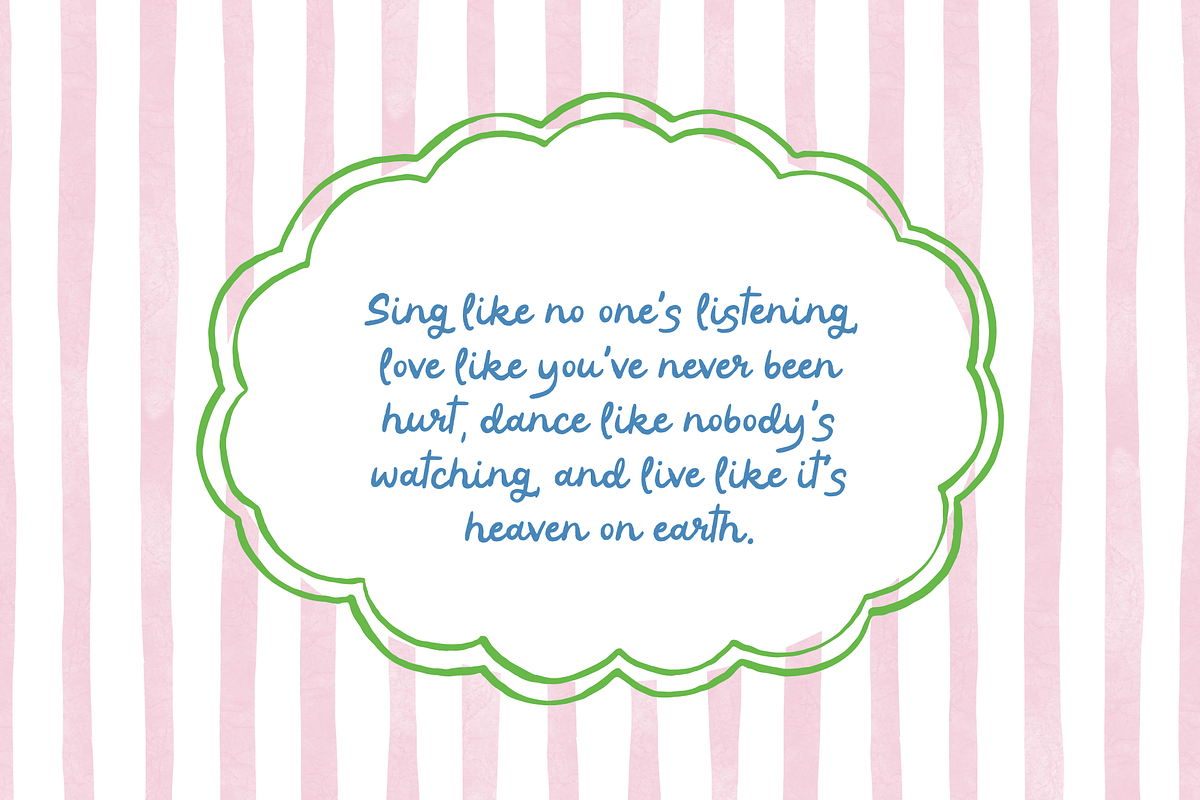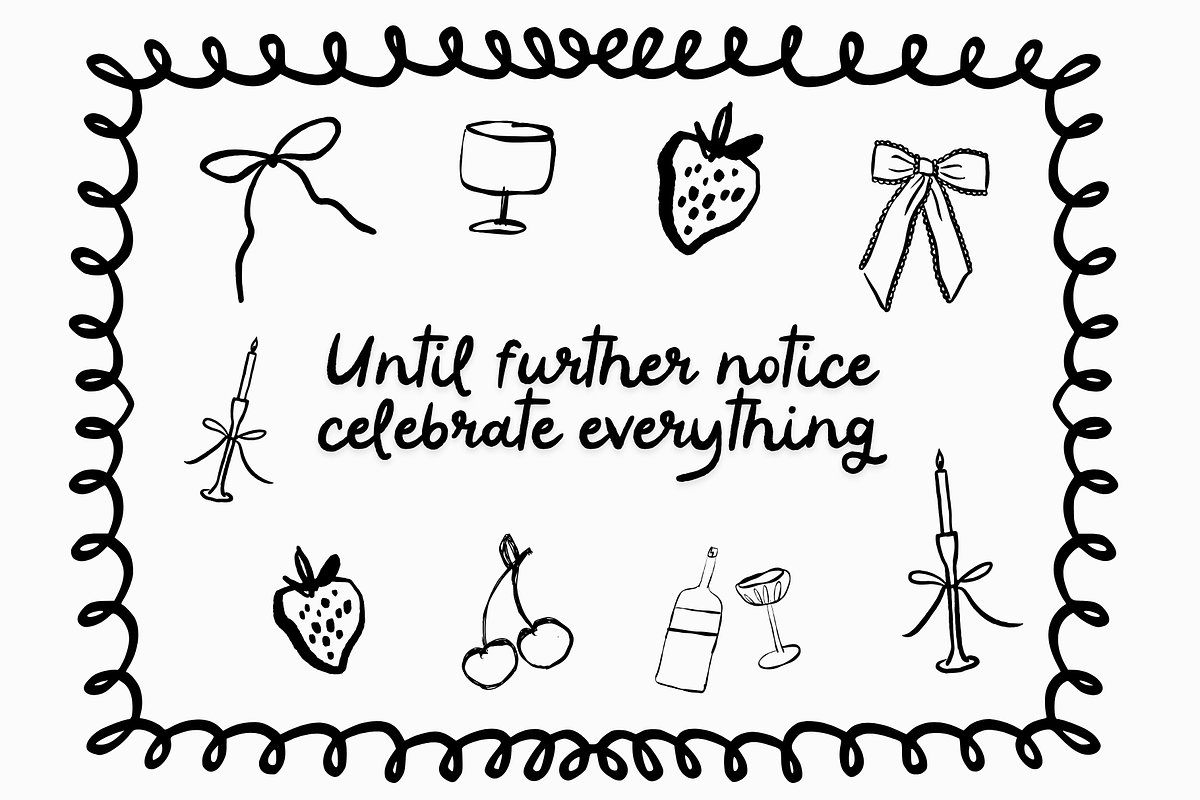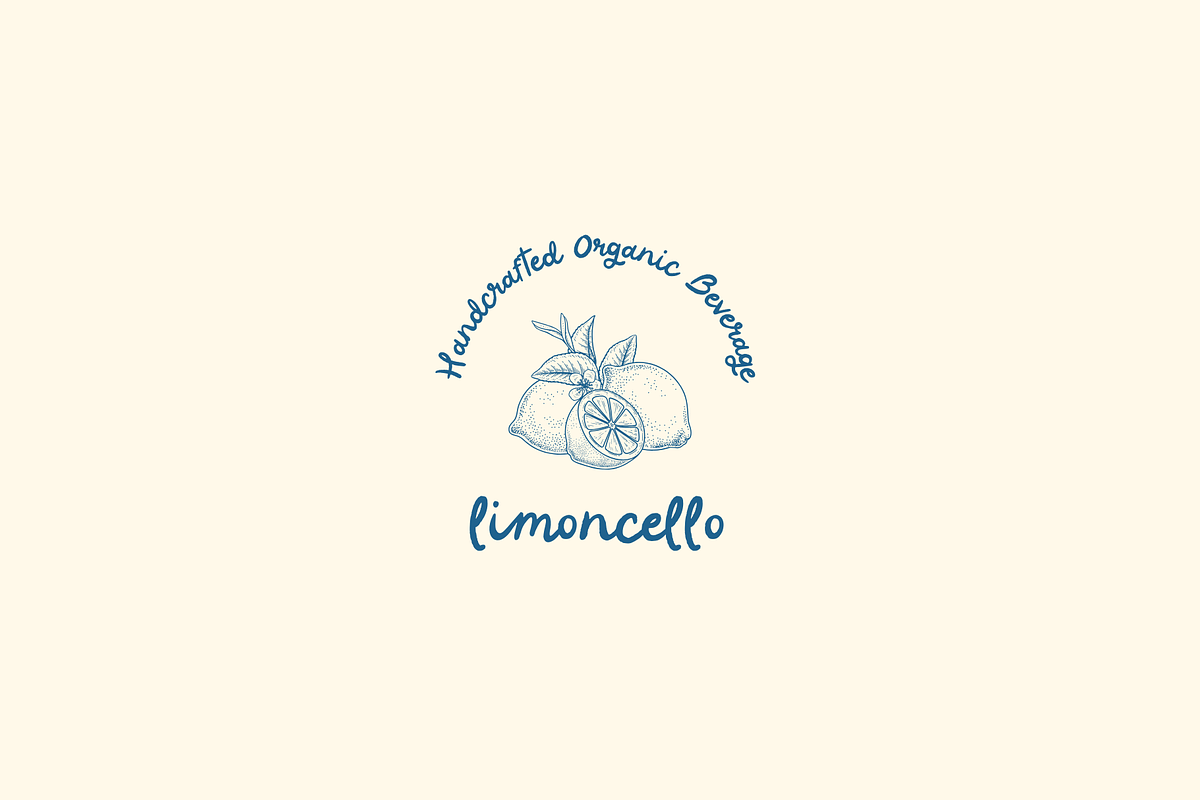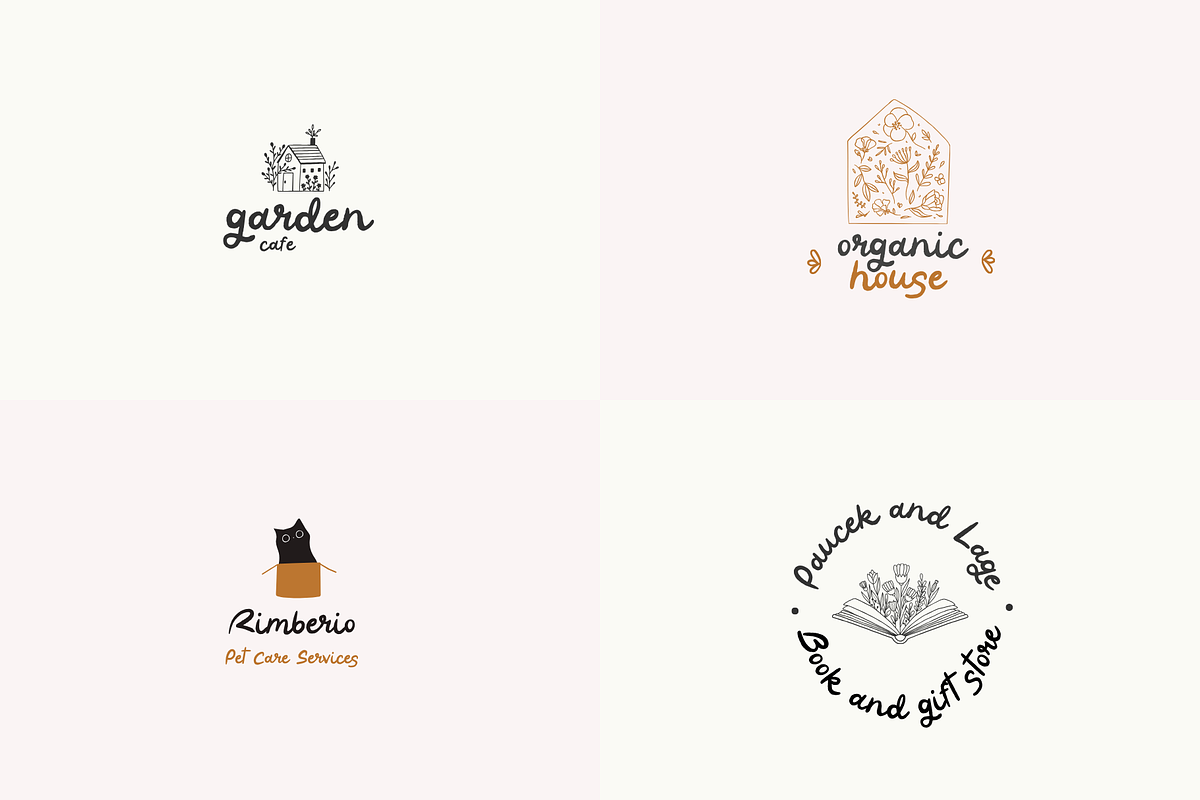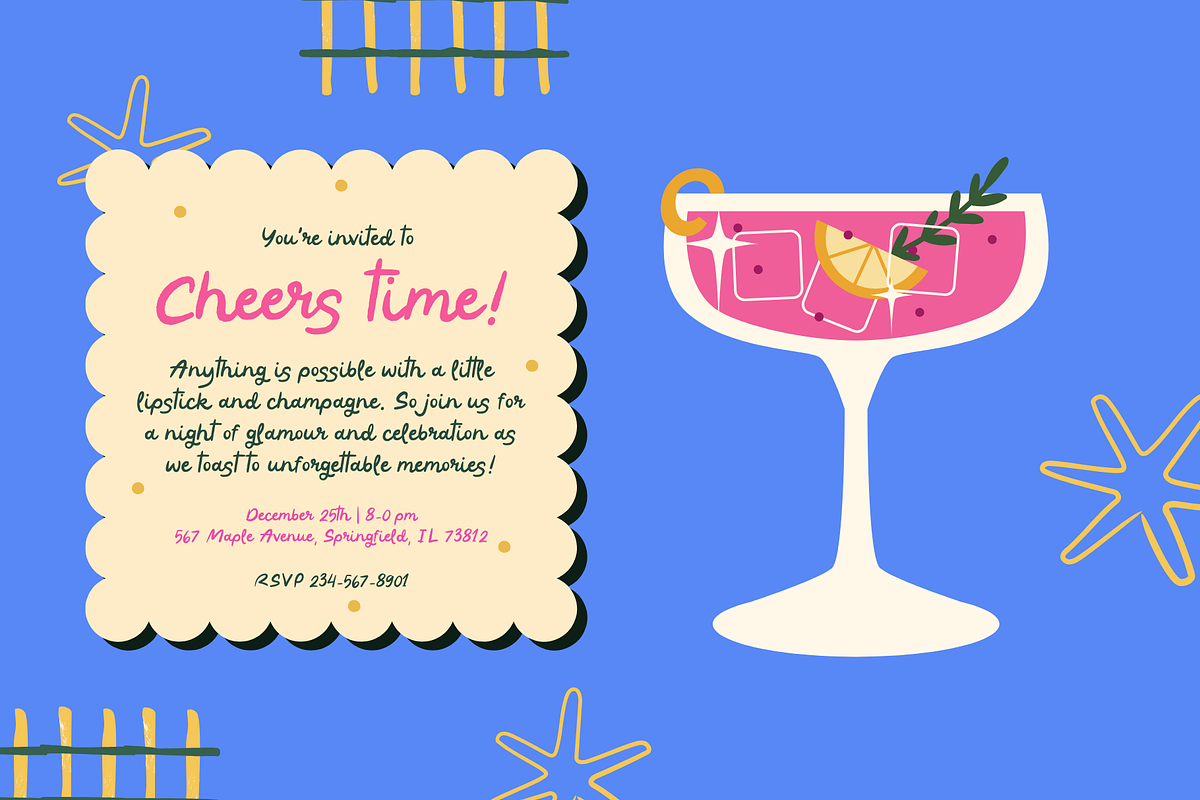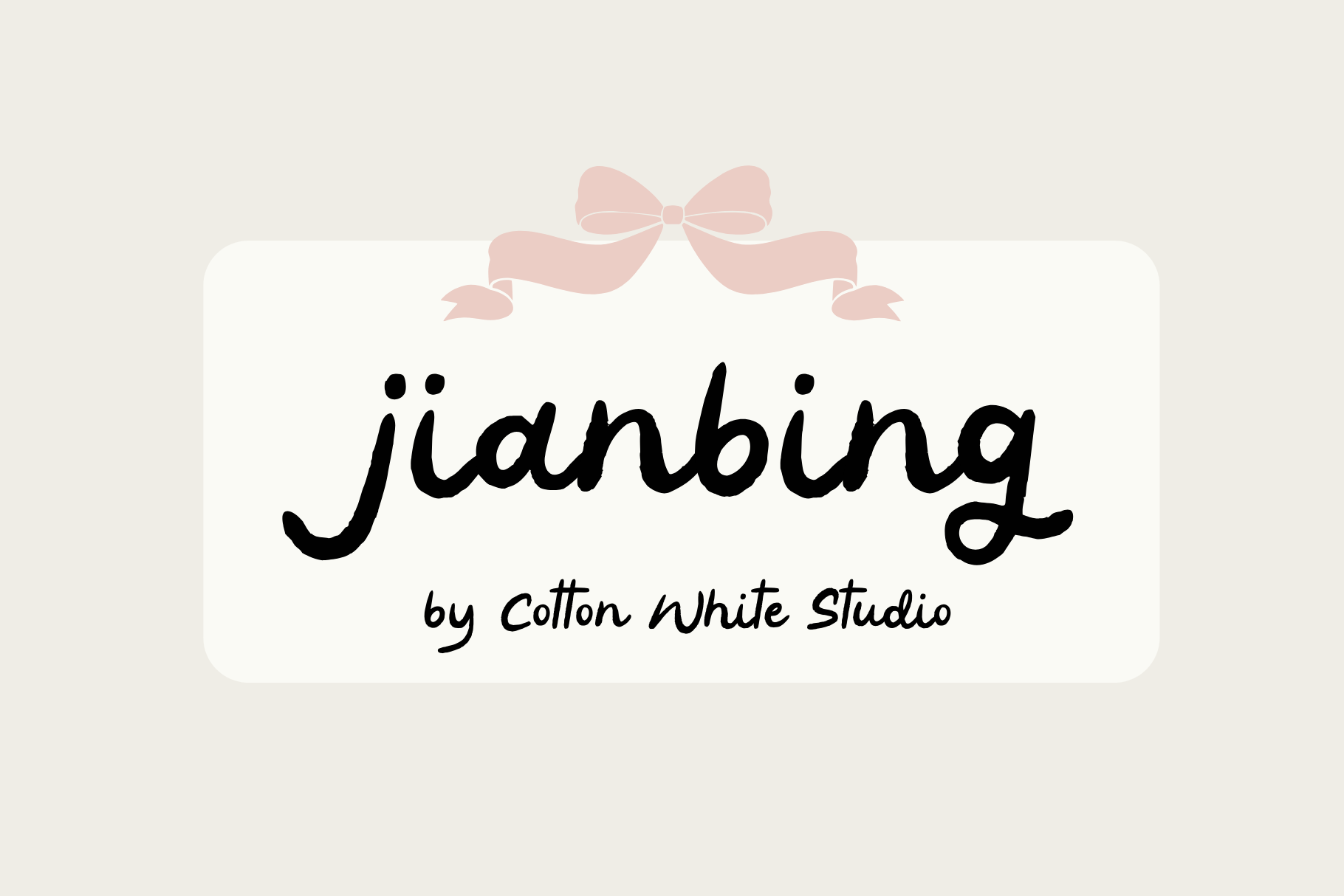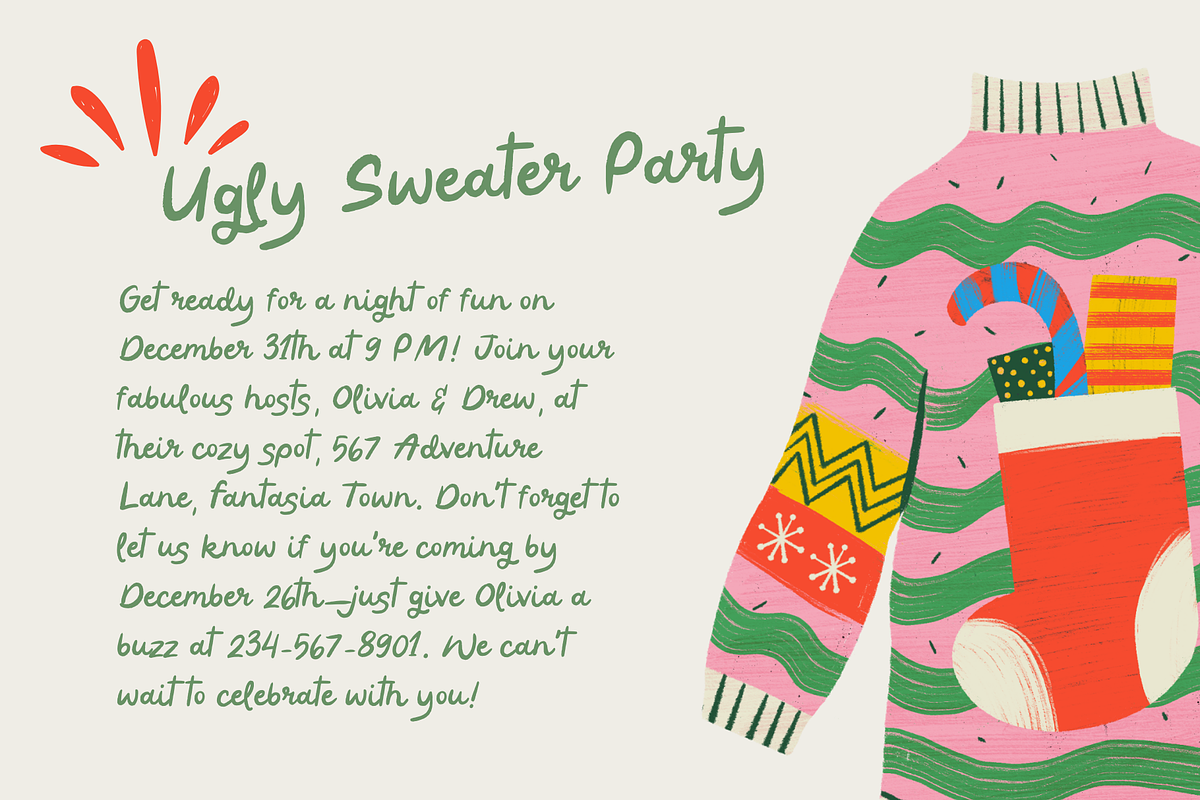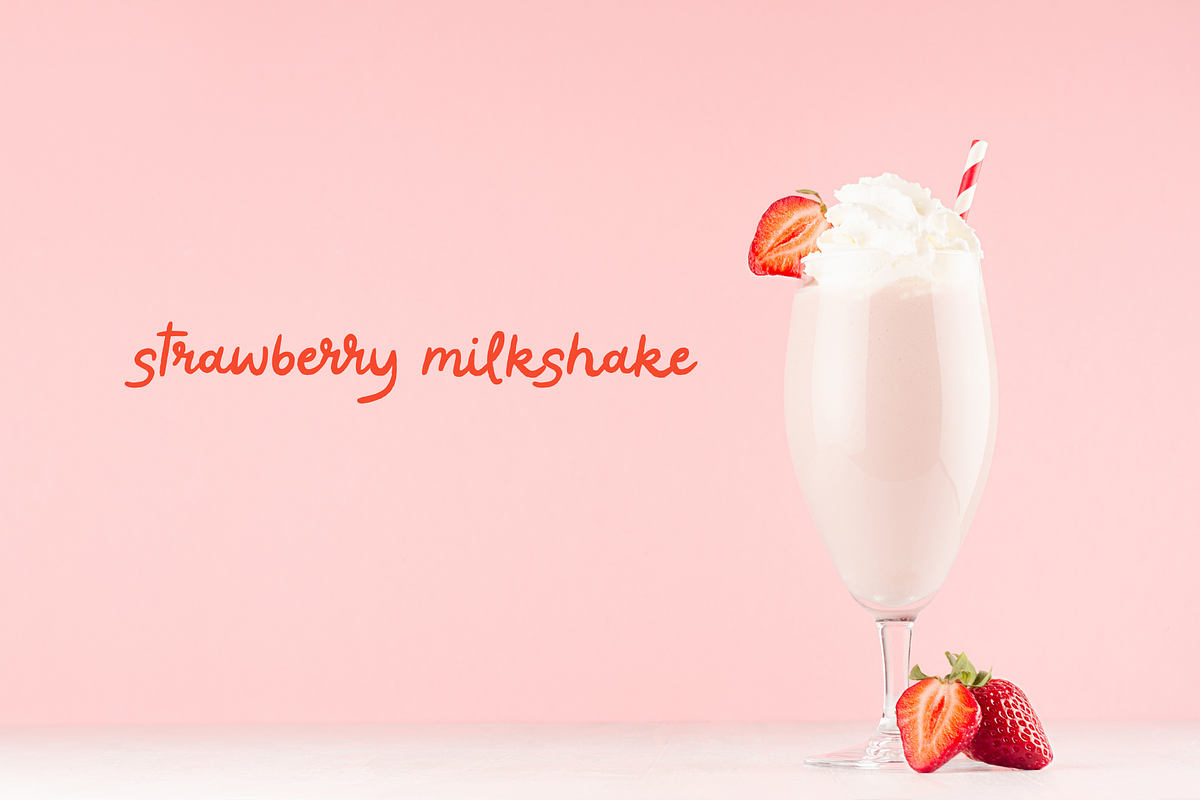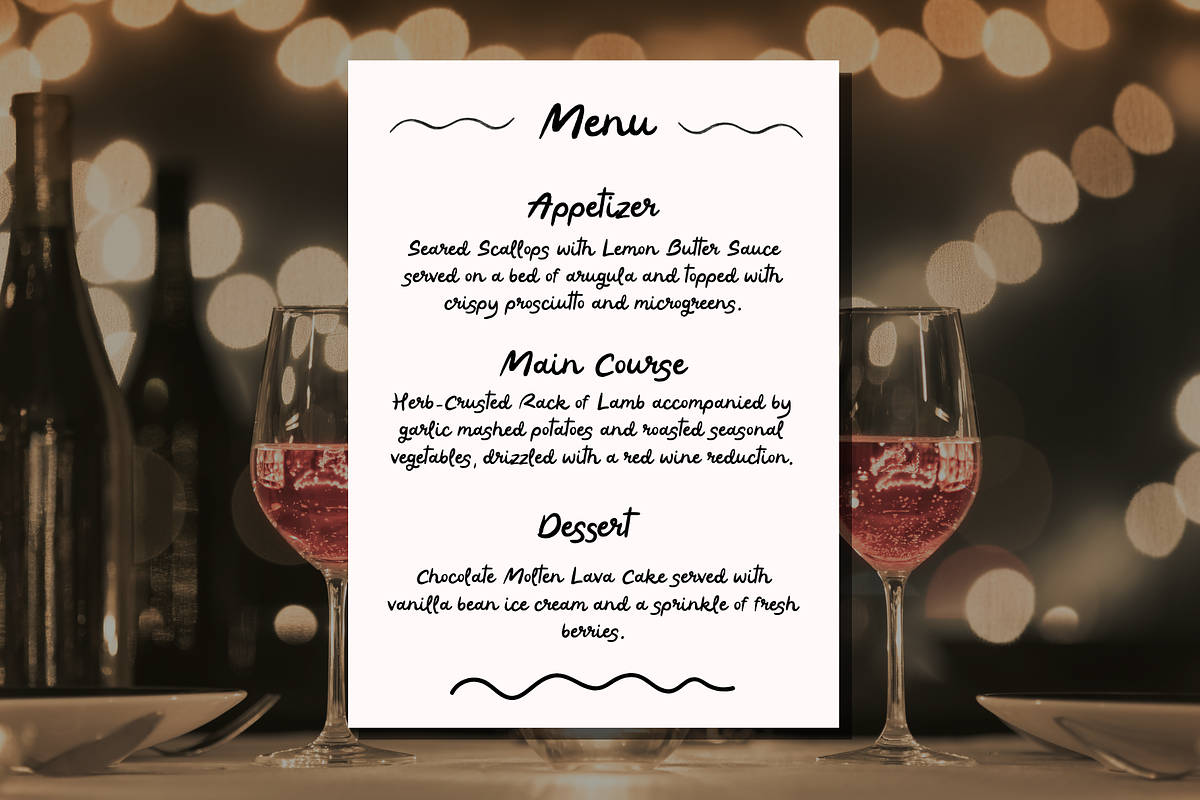
Jianbing Font
Add a touch of personality with our handwritten font Jianbing! Full of character and charm, this playful font bring a relaxed, imperfect feel to any project. Whether you're designing a greeting card or refreshing your brand, it's perfect for creating something distinct and full of life.